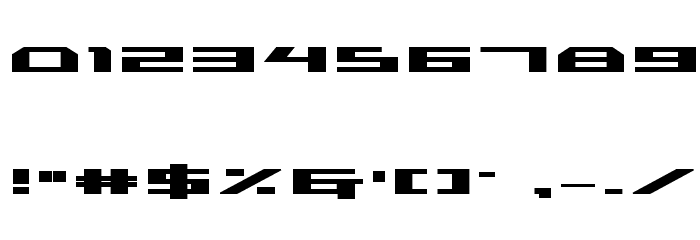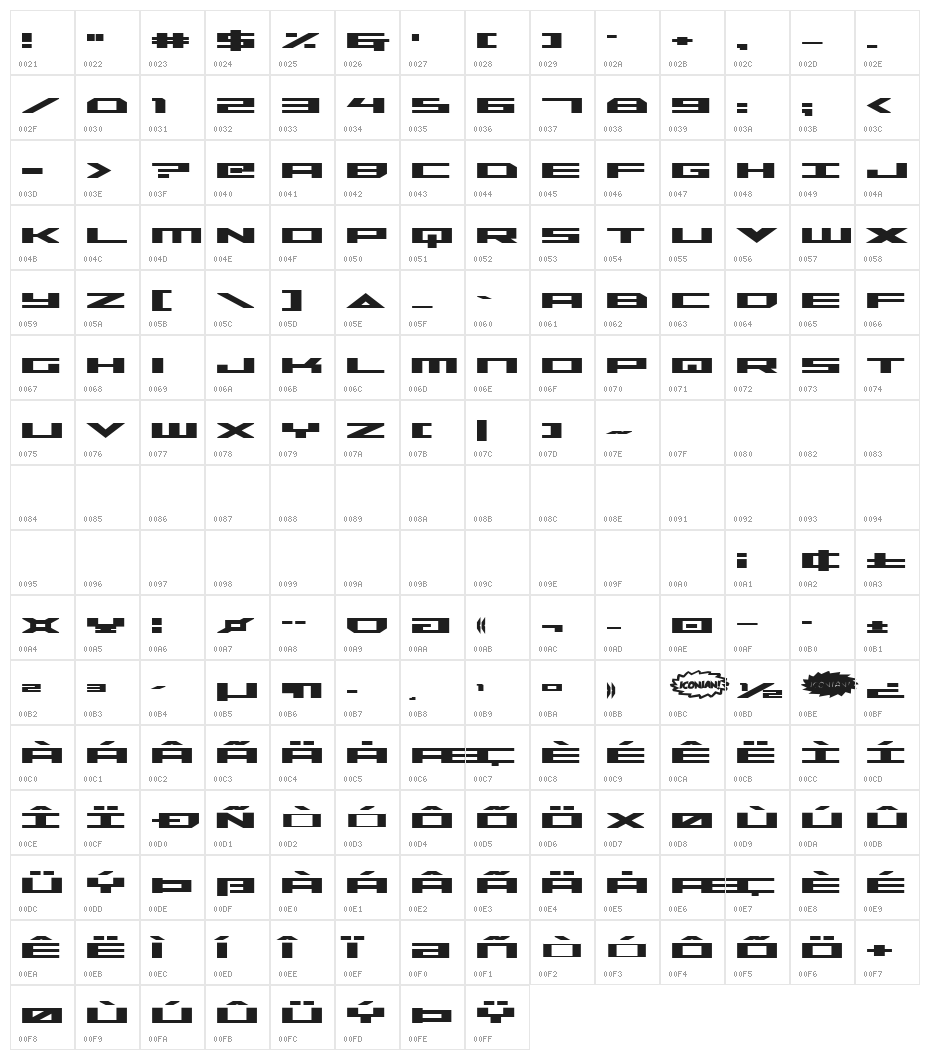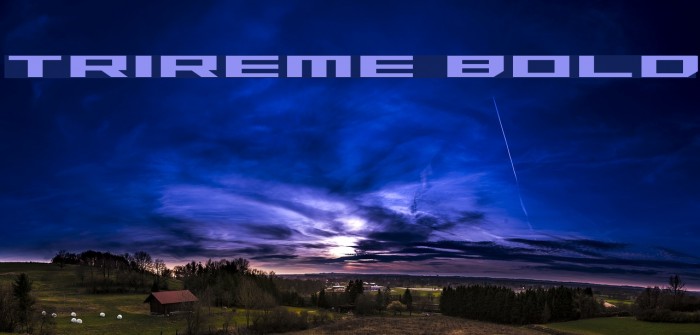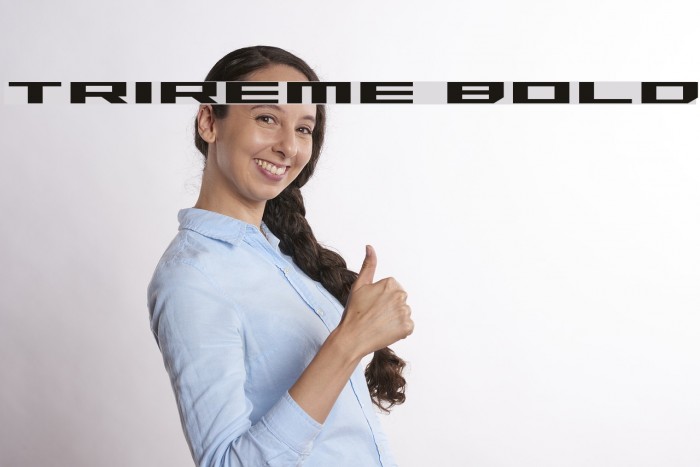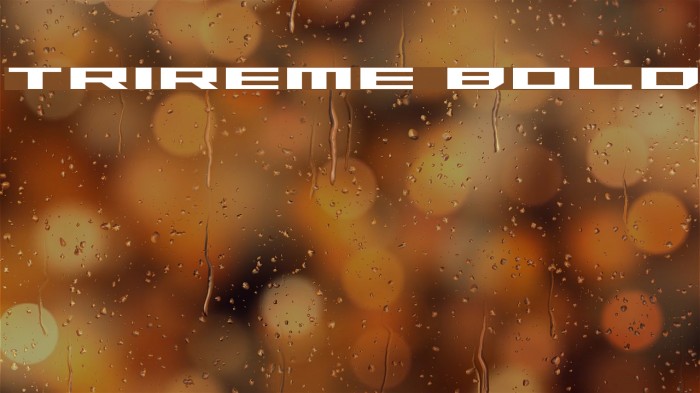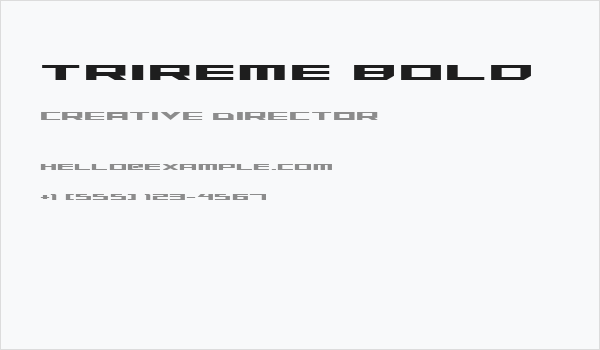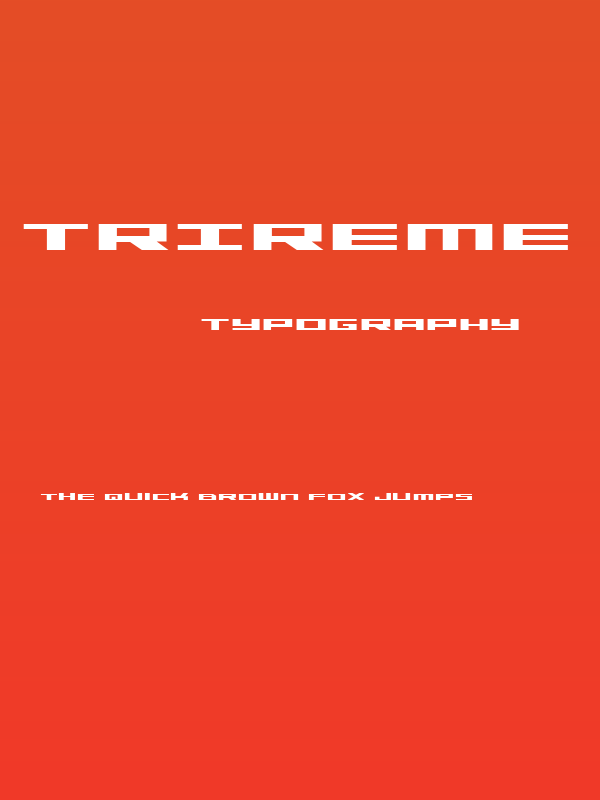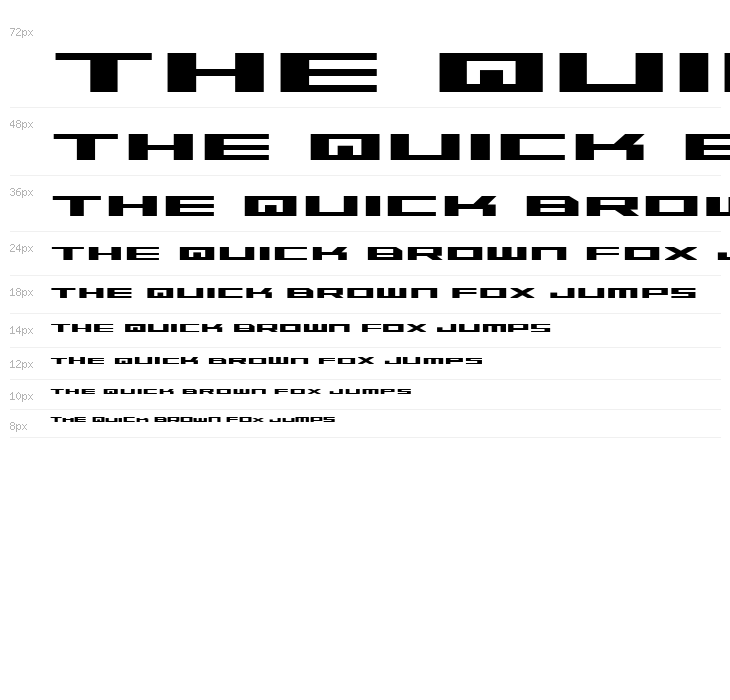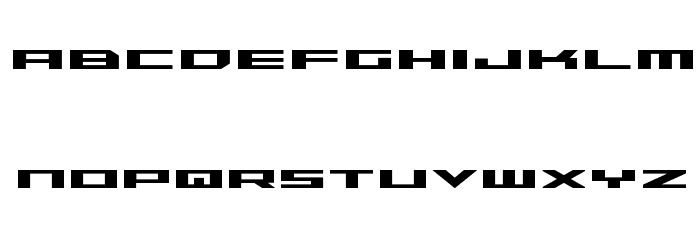
Trireme Bold Font
Trireme Bold Description
This font features a bold, geometric design with strong, angular lines and a futuristic aesthetic. The characters are constructed with a consistent thickness, giving them a uniform appearance. The uppercase letters are particularly striking, with sharp edges and a blocky form that conveys strength and modernity. The lowercase letters maintain the same boldness, ensuring readability while preserving the font's distinctive style. Numbers and special characters are designed to match the overall aesthetic, making them suitable for a variety of applications. The font's unique style is ideal for projects that require a modern, tech-inspired look.
| Proposed Projects | Ideal for technology branding, video game titles, sci-fi movie posters, and modern digital interfaces. |